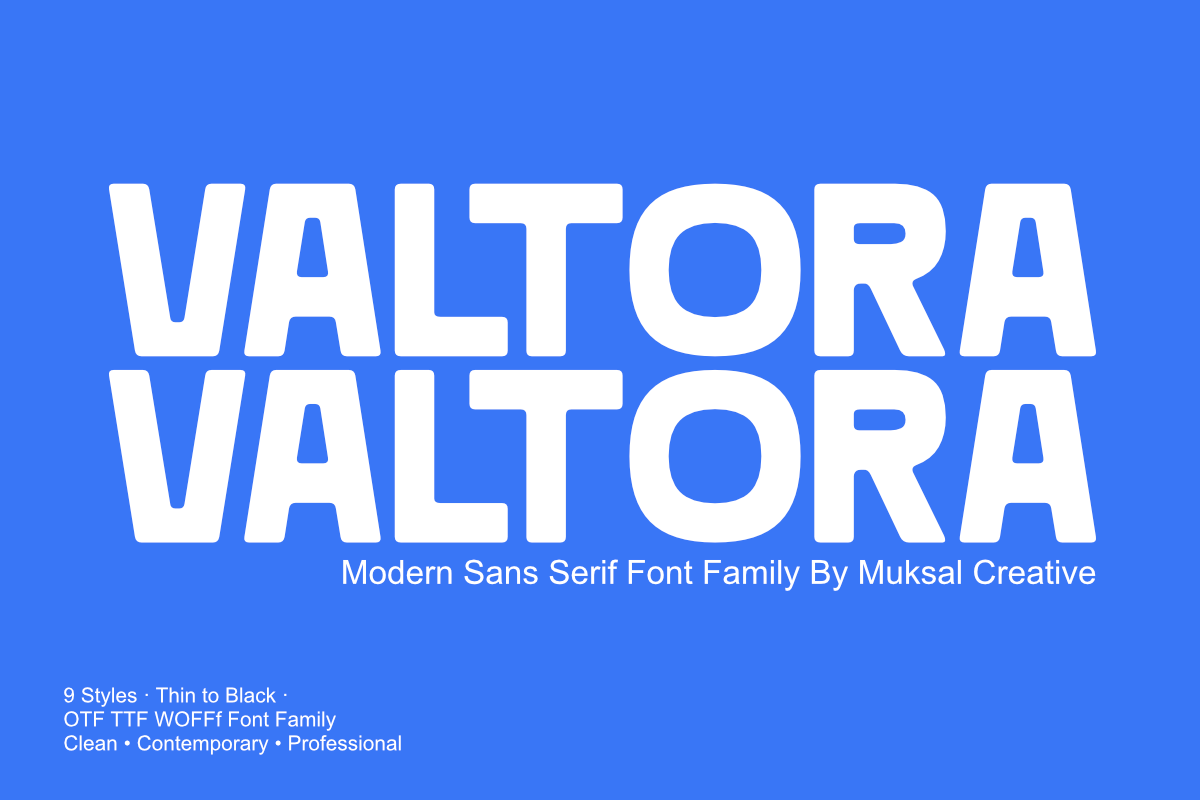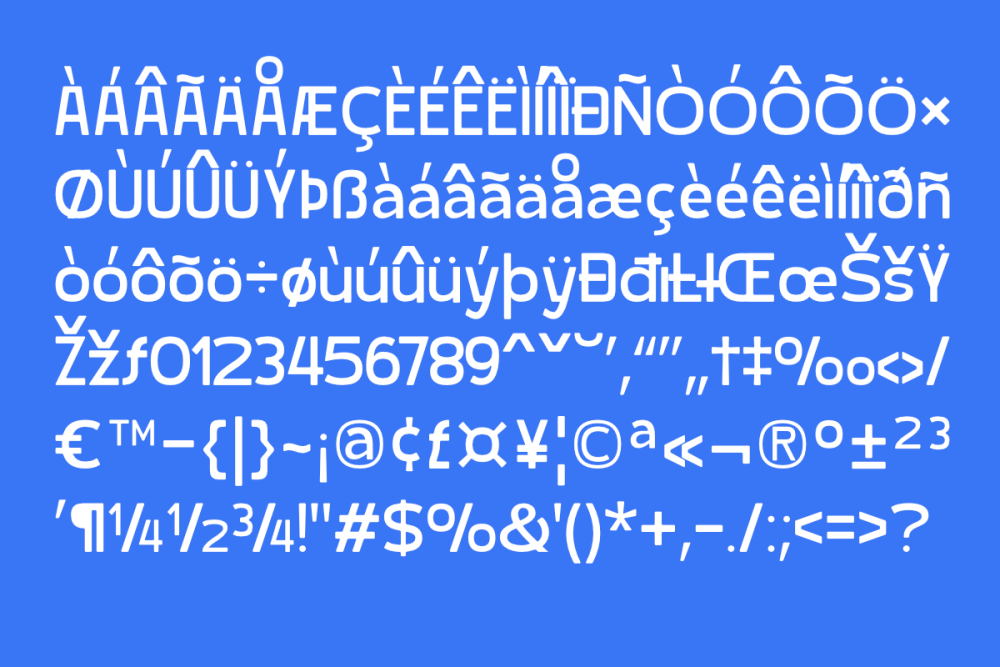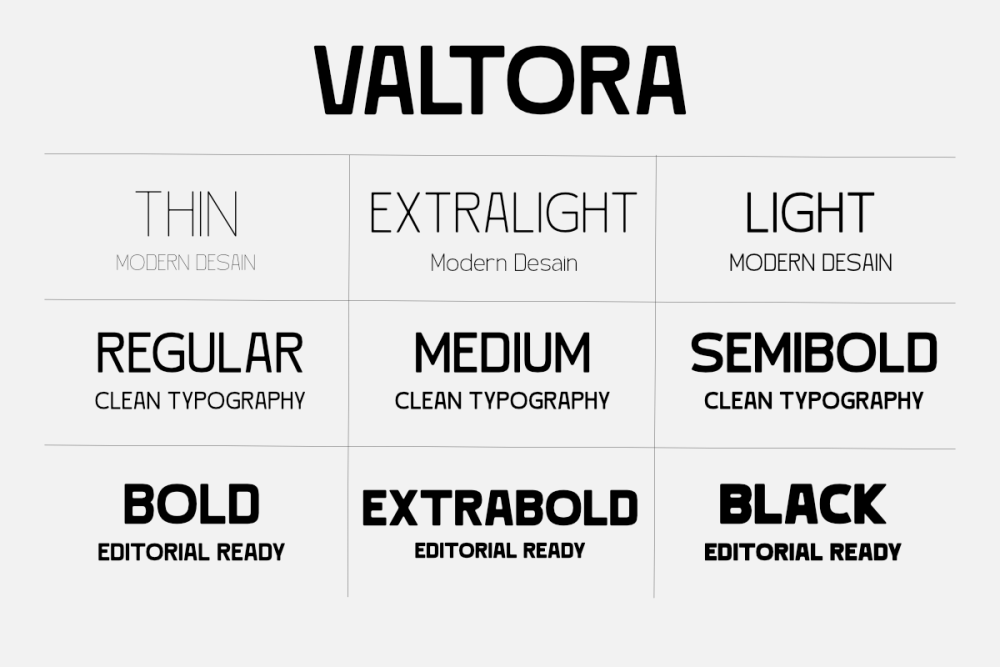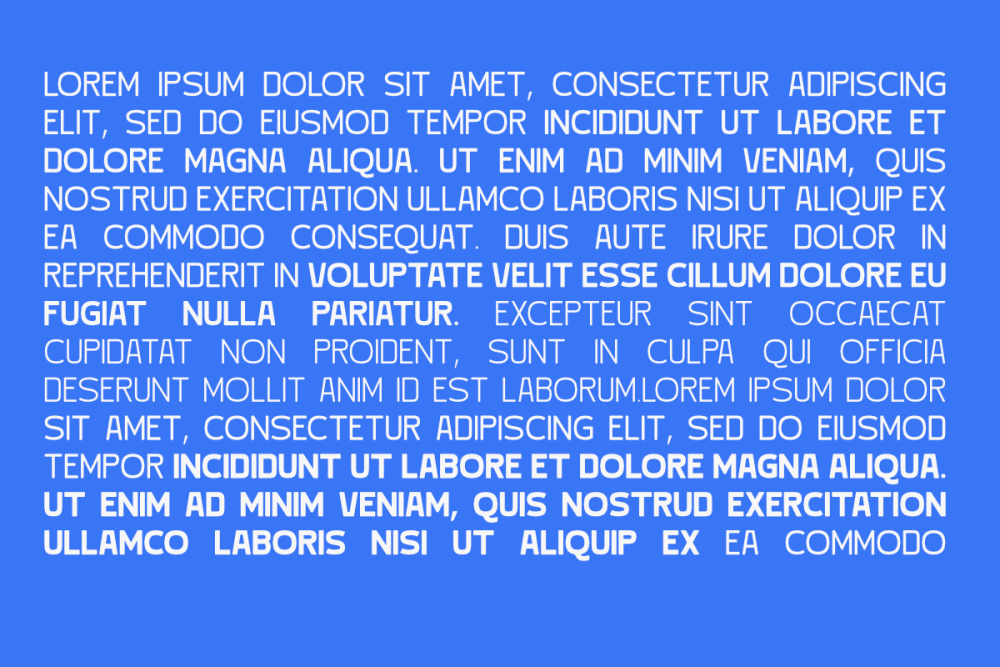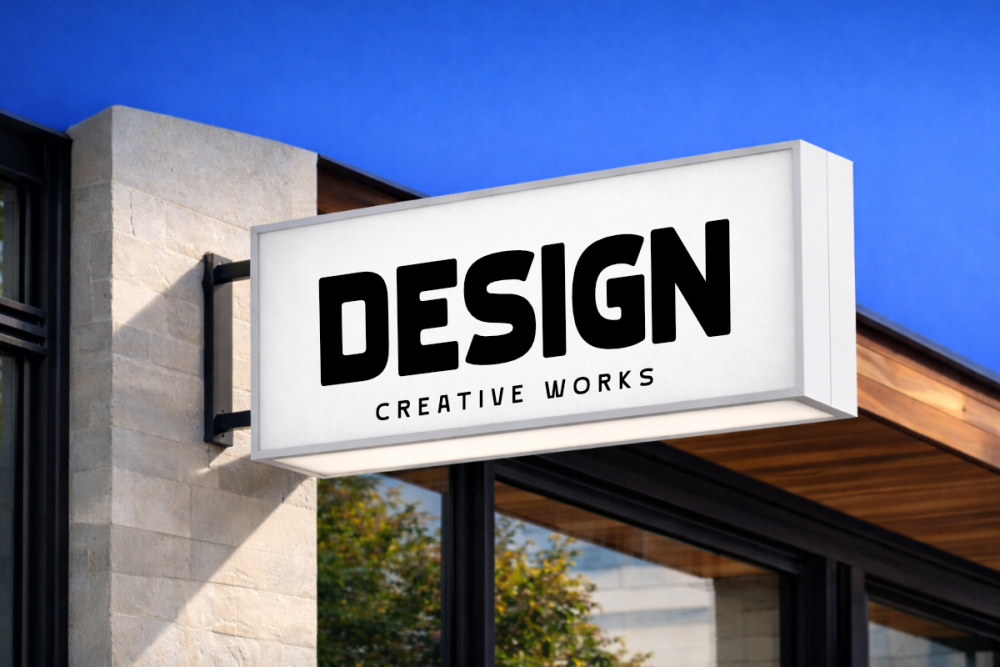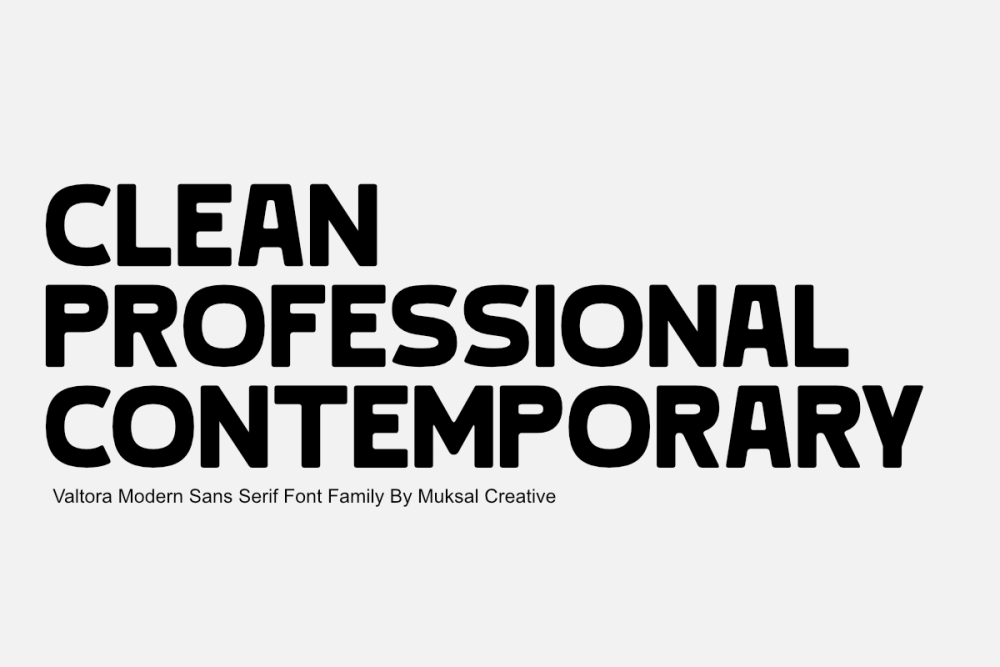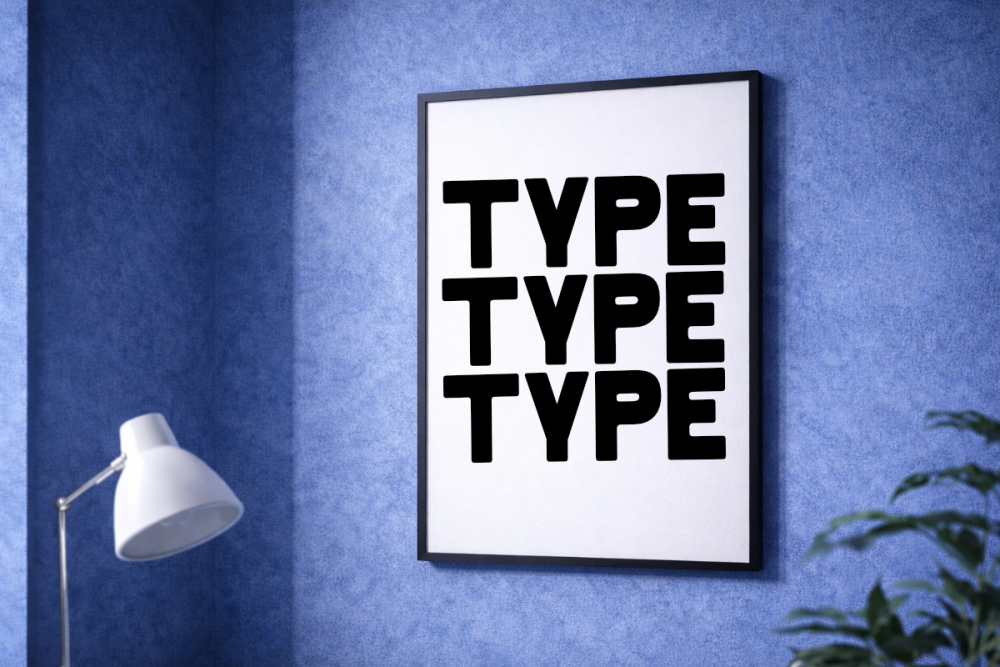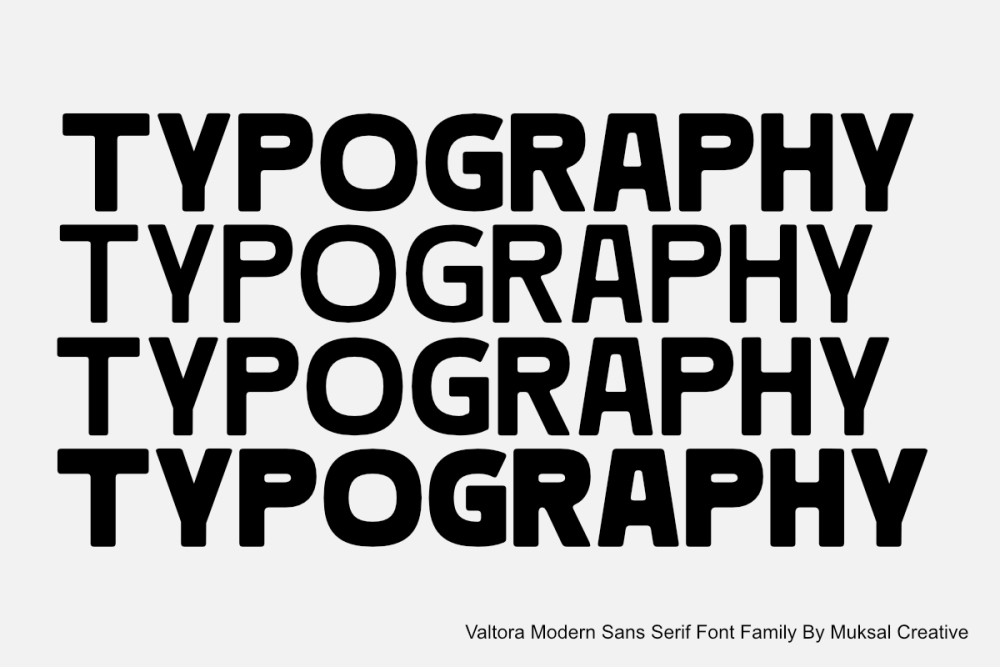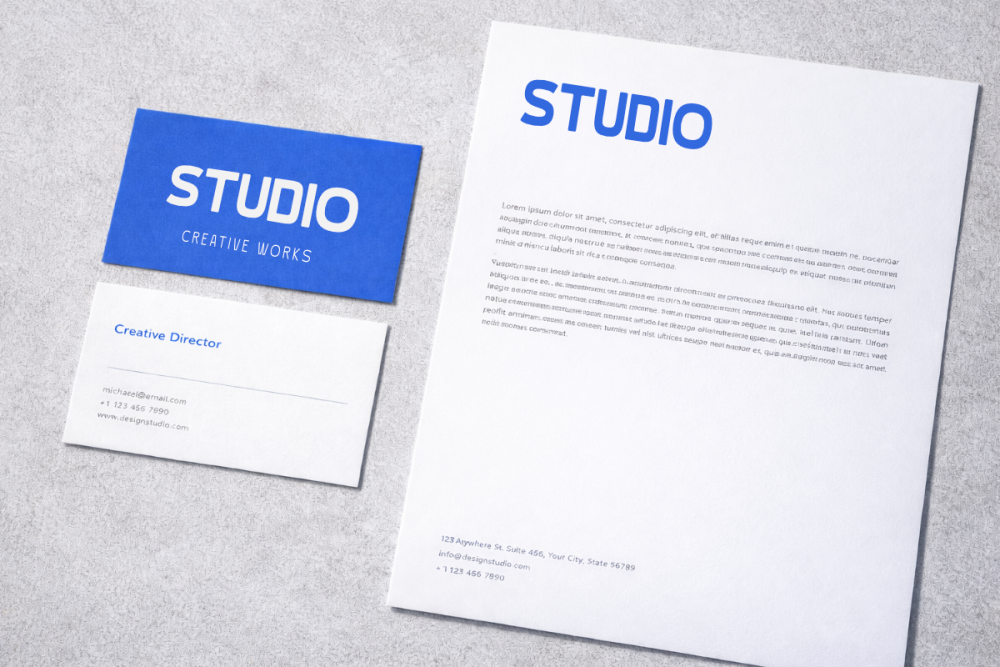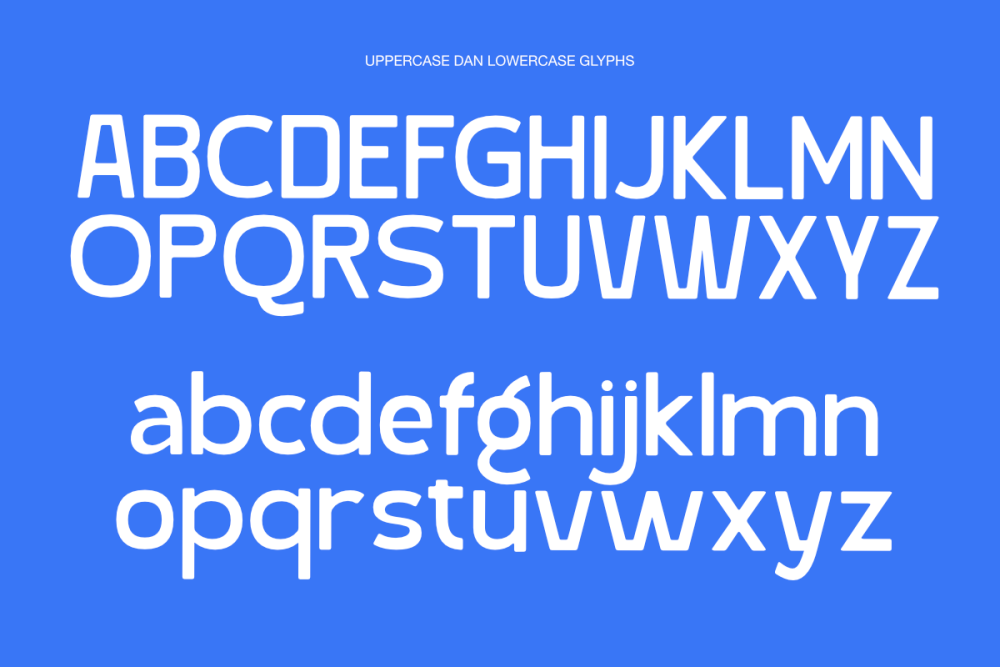
VALTORA is a modern sans serif font family designed for clean, professional, and contemporary visual communication. With a complete set of 9 styles from Thin to Black, Valtora provides a flexible typographic system that works beautifully across branding, editorial design, UI/UX, and digital products.
Its balanced proportions, clear letterforms, and neutral personality make Valtora highly versatile for both display and text usage. Whether you’re creating bold headlines, refined layouts, or sleek interfaces, Valtora delivers strong readability and a modern aesthetic that fits a wide range of creative projects.
This type family is crafted for designers who need a reliable, minimalist sans serif with a premium feel—perfect for logos, websites, presentations, posters, social media, packaging, and corporate identity systems.
• 9 styles: Thin to Black
• Uppercase & lowercase letters
• Numbers & punctuation
• Multilingual support
• Perfect for branding, UI design, editorial layouts, and modern visual identity
Valtora – Clean Modern Sans Serif Font Family